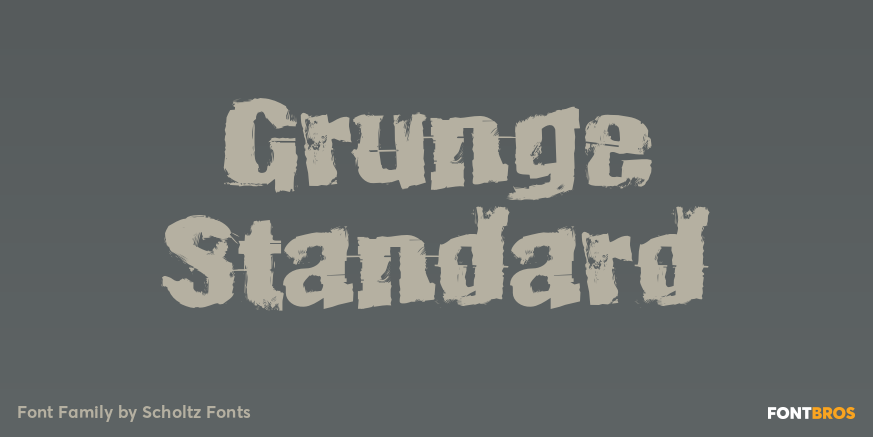
Grunge Standard
About Grunge Standard
Grunge Standard is to grunge fonts what Jazz standards are to the world of Jazz ? timeless, easy to use, great for every occasion. The font is easily recognized, clear and legible, just like the tune that everyone knows. Use Grunge Standard for contemporary…